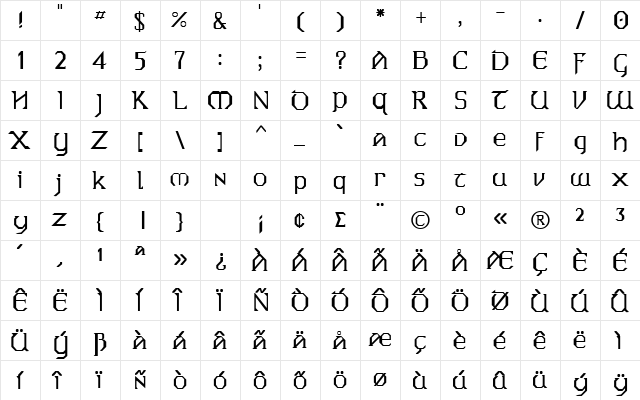
Query Normal Font Preview
Query Normal
Design Context for Query Typeface
Query is a composed and adaptable typeface that performs quietly and consistently across a wide range of design contexts.